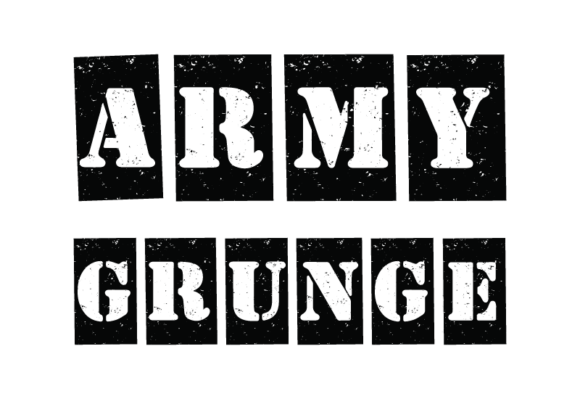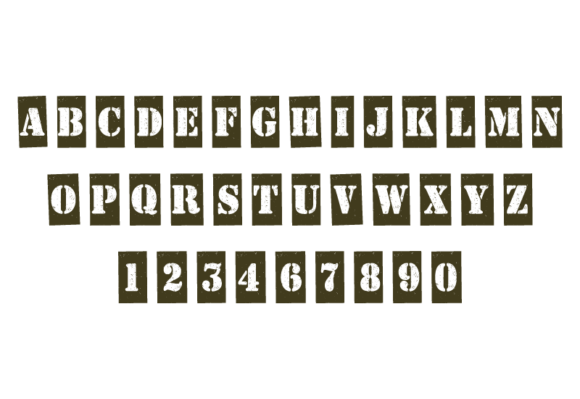
Unleash the Power of Distinctiveness: Discover the Army Grunge Font
In the world of typography, a font can be more than just a means of communication – it can be a statement, an attitude, and a reflection of one’s individuality. For designers and crafters seeking to add an edge to their projects, the Army Grunge font is an exceptional choice. This display font is specifically designed to make a bold statement, with its raw, rough lines and distressed texture evoking an aura of grit and dissent.
The Essence of Non-Conformity
Army Grunge is more than just a typeface – it’s an experience. Its unapologetic boldness and individualistic spirit make it the perfect complement for projects that thrive in audacity. Whether you’re working on disruptive poster graphics, audacious album covers, or distinctive streetwear branding, Army Grunge is crafted to embody the essence of non-conformity. With this font, you can add a touch of rebellion to your design and make it stand out from the crowd.
Raw, Rough, and Unapologetic
The Army Grunge font features a unique design that’s characterized by its raw, rough lines and distressed texture. Each letter is carefully crafted to convey a sense of grit and dissent, making it perfect for projects that require a bold and edgy aesthetic. The font’s texture is layered with a sense of wear and tear, giving it a worn, vintage look that’s both authentic and captivating.
Perfect for Bold Projects
Army Grunge is designed to make a statement, which is why it’s perfect for bold and daring projects. Here are some ideas on how to use this font:
- Disruptive poster graphics: Use Army Grunge to create eye-catching posters that grab attention and refuse to let go.
- Audacious album covers: Add an edgy touch to your music album covers with Army Grunge, and make them stand out in a crowded market.
- Distinctive streetwear branding: Use Army Grunge to create bold and daring brand identities for streetwear labels that refuse to conform.
Enhance Your Design Aesthetics
Army Grunge is more than just a font – it’s a design statement. By incorporating this font into your projects, you can add a touch of individuality and non-conformity to your design aesthetics. Whether you’re a designer, crafter, or DIY enthusiast, Army Grunge offers a unique opportunity to express yourself and make your message heard.
Key Features of Army Grunge
Here are some key features that make Army Grunge a standout font:
- Raw, rough lines and distressed texture
- Unapologetic boldness and individualistic spirit
- Perfect for bold and daring projects
- Layered texture with a worn, vintage look
- Supports a wide range of languages and scripts
Get Ready to Make a Statement
With Army Grunge, you can unleash the power of distinctiveness and make a statement with your design. Whether you’re looking to add an edge to your branding, packaging, or marketing materials, this font is the perfect choice. So why settle for ordinary when you can make a bold statement with Army Grunge?
In conclusion, Army Grunge is a font that’s not for the faint of heart. It’s for those who dare to be different, who refuse to conform, and who want to make a statement with their design. If you’re ready to unleash the power of distinctiveness and add an edge to your projects, then Army Grunge is the perfect choice.